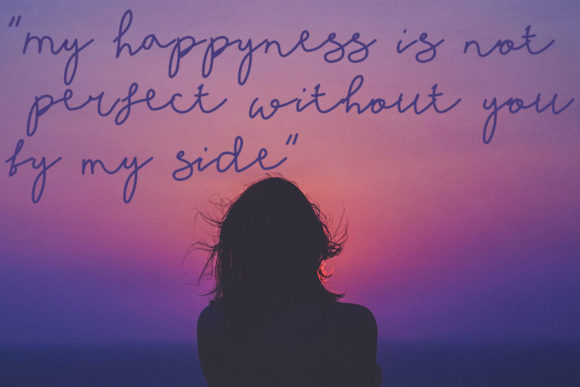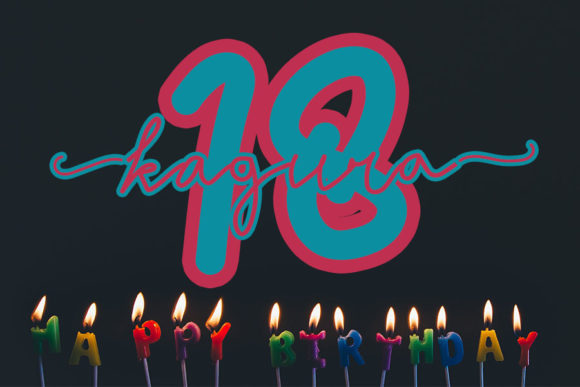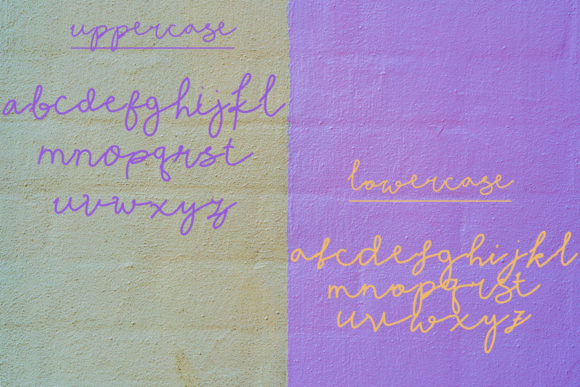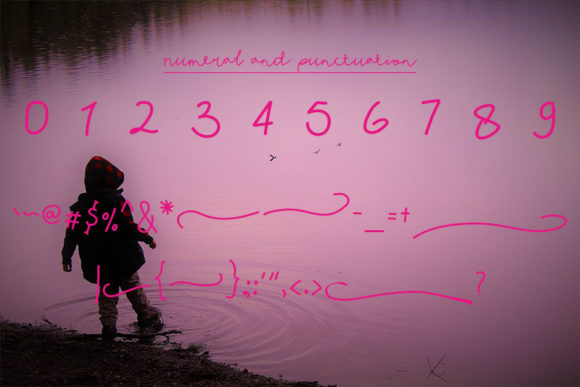
Mardhia Font
About Mardhia Font
Mardhia is a whimsical and unique handwritten font. Masterfully designed to become a true favorite, this font has the potential to bring each of your creative ideas to the highest level!